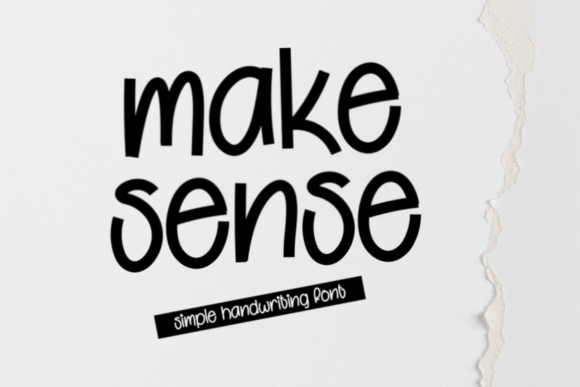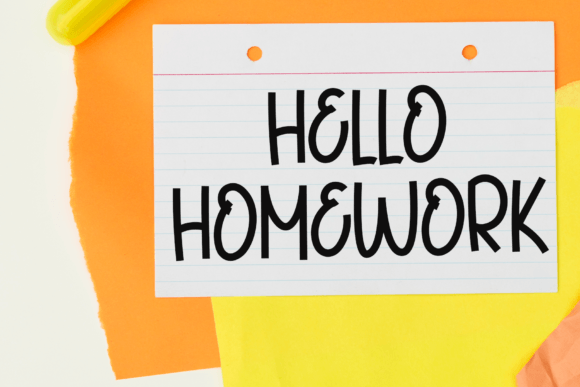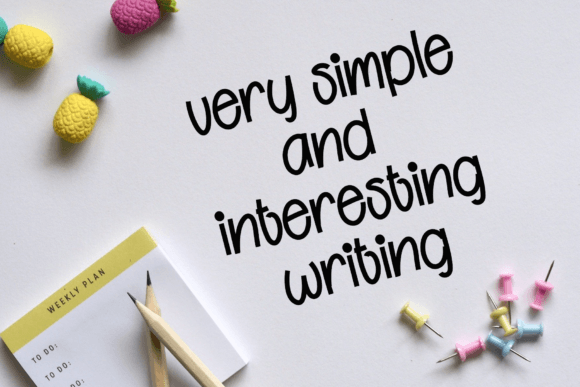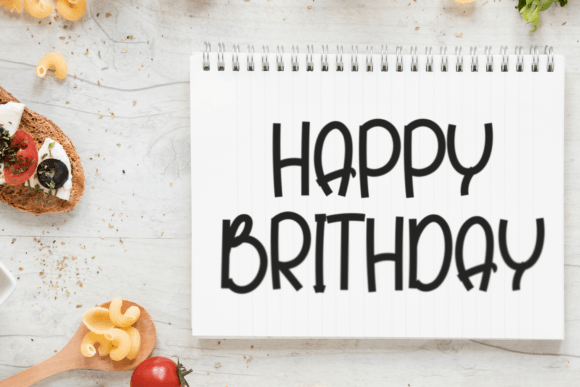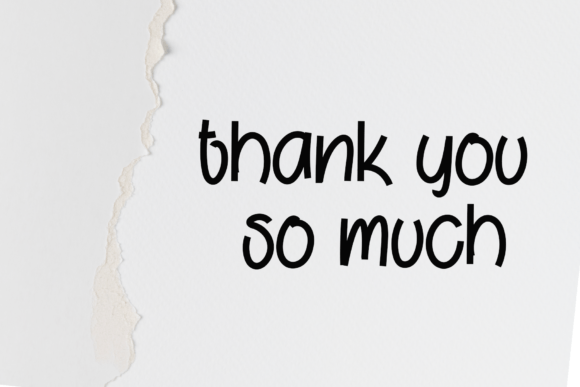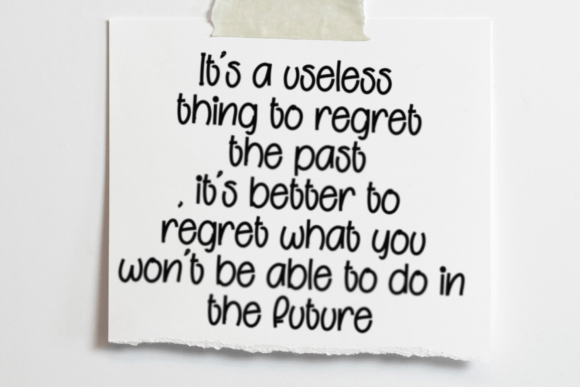
Make Sense Font
Make Sense Font: Playful Handwriting for Creative Designs
“Make Sense” is a gorgeous handwritten font that adds a touch of fun and whimsy to your designs. It’s perfect for various creative projects, from product packaging to social media posts.
Key Features of Make Sense Font
• Playful Style: Make Sense brings a fun and whimsical feel to designs.
• Versatile Use: Suitable for many projects, including branding and weddings.
• Charming Character: Creates an inviting atmosphere in typography.
Branding and Packaging
Make Sense’s playful style is ideal for creating memorable logo designs and product packaging that convey creativity.
Social Media and Digital Content
Use Make Sense to design engaging social media graphics that stand out with their charming appeal.
Wedding Stationery
The font’s sweet look makes it perfect for creating captivating wedding invitations and special event materials.
Why Choose Make Sense Font?
Make Sense offers more than just playful letters. Here’s why it stands out:
• Injects a sense of joy and uniqueness into designs
• Conveys a sense of creativity and friendliness effectively
• Adds a touch of approachability to projects
By using Make Sense, you open up new design possibilities. Its whimsical style works well in many contexts, from greeting cards to poster designs. The font’s ability to convey playfulness can inspire creative ideas and help you approach projects from a fresh, engaging perspective.
If you’re looking for a font that’s both fun and versatile, Make Sense is an excellent choice. It’s perfect for adding a touch of whimsy to your work, especially for projects that need a playful, approachable feel.
Explore how Make Sense can transform your designs. From branding materials to personal creations, this font brings a charming and creative quality to your work.